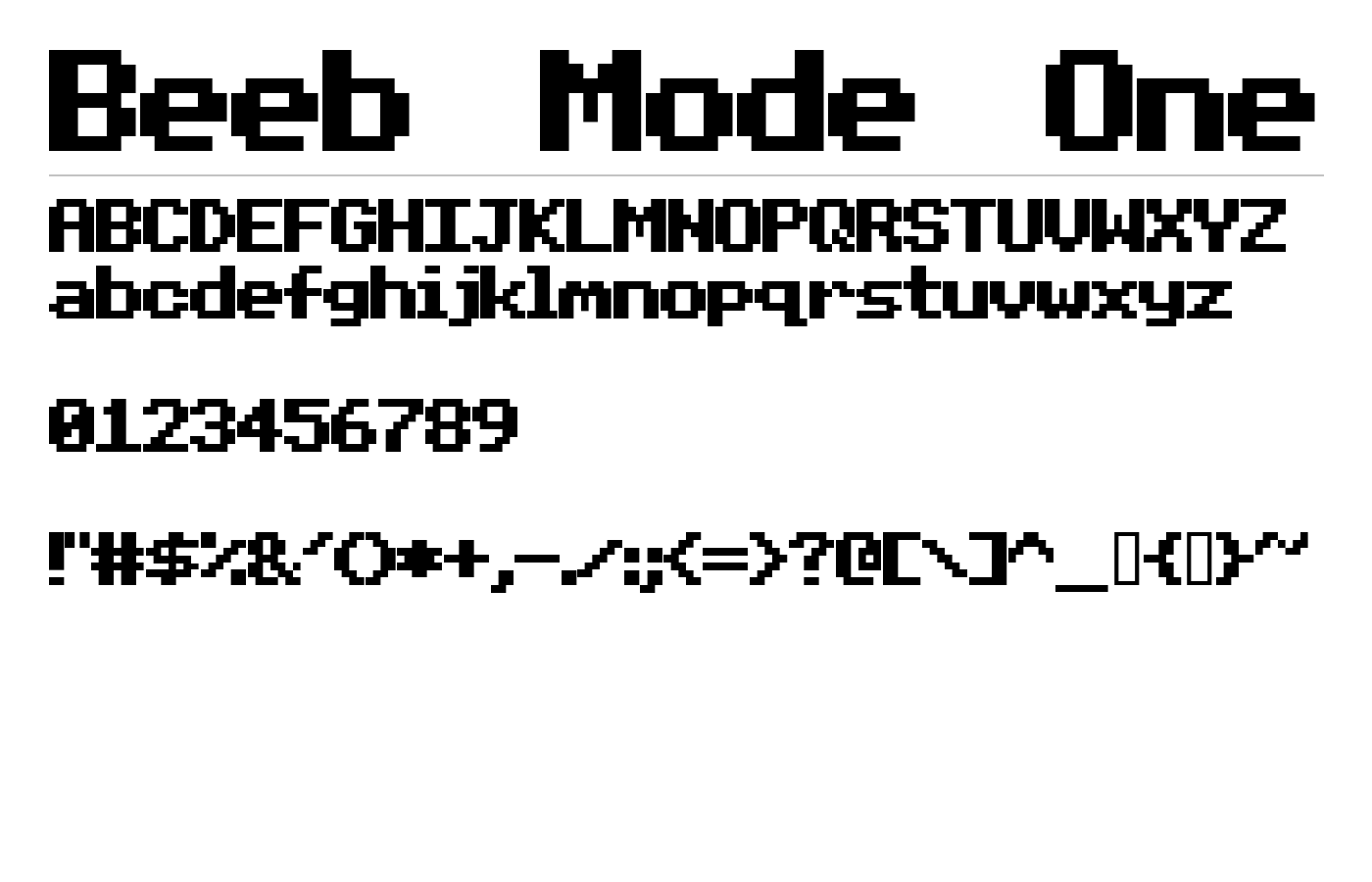
Beeb Mode One is a bold, pixel-style sans serif font with a blocky, geometric design that evokes retro computer and video game aesthetics. Its uniform stroke weight, squared shapes, and consistent spacing create a technical and digital feel, making it ideal for tech-themed designs, gaming interfaces, and creative projects that seek a nostalgic yet modern pixel-art vibe. This font works best in headlines, logos, and digital displays where clarity and a distinctive pixelated character are key.
Beeb Mode One Font